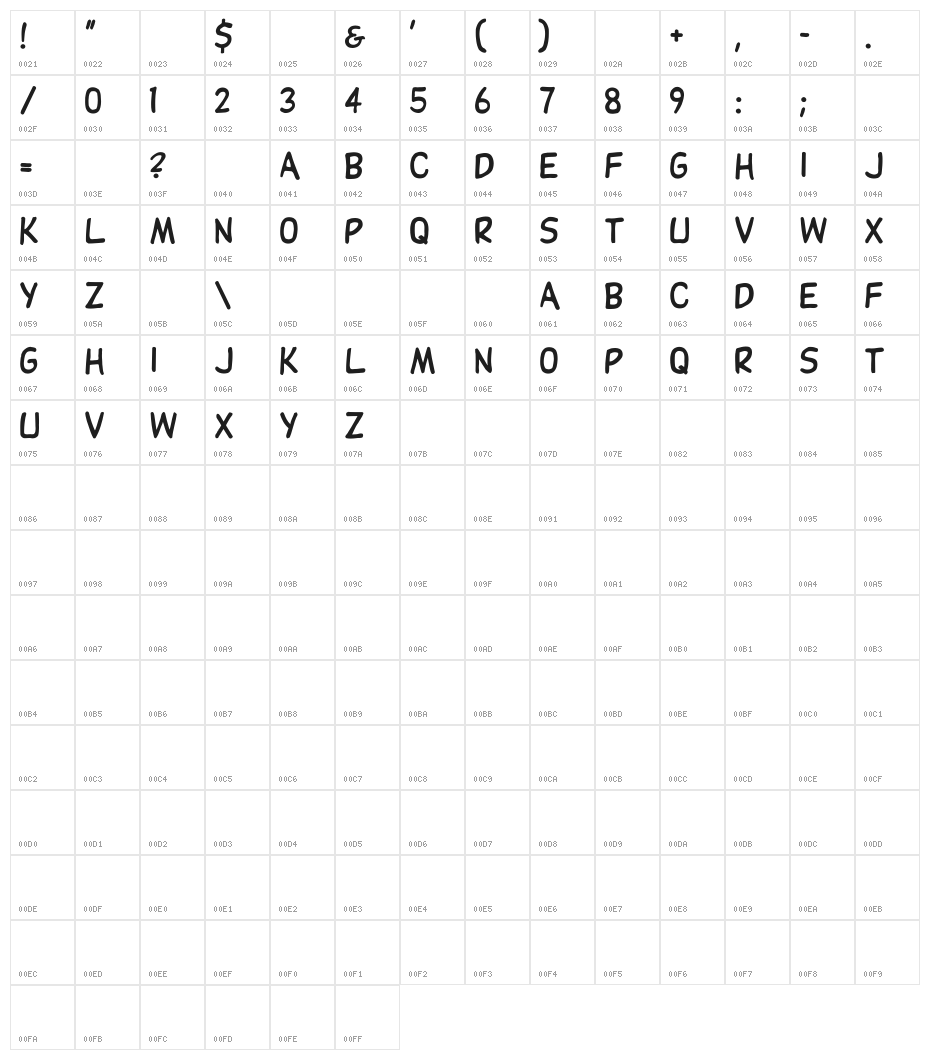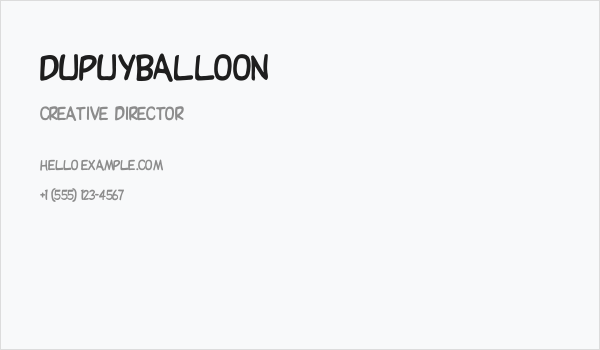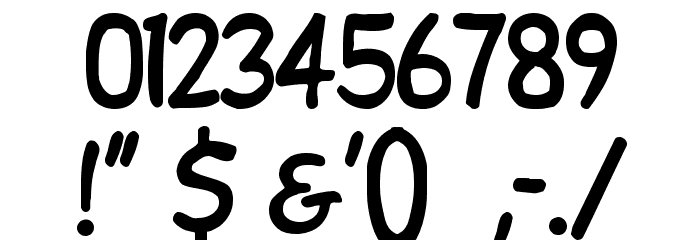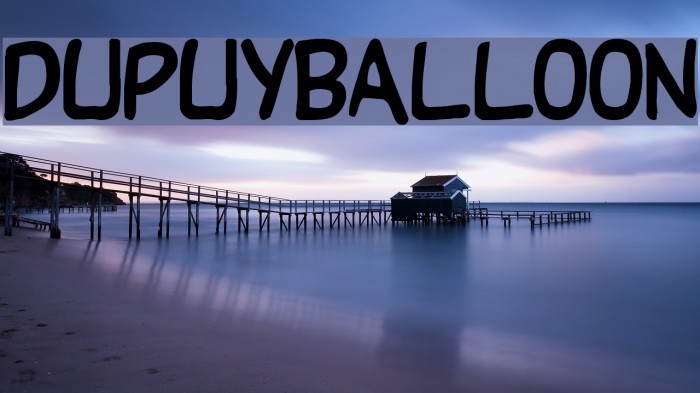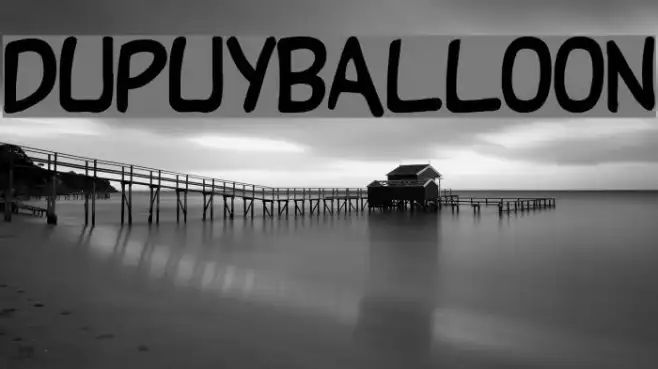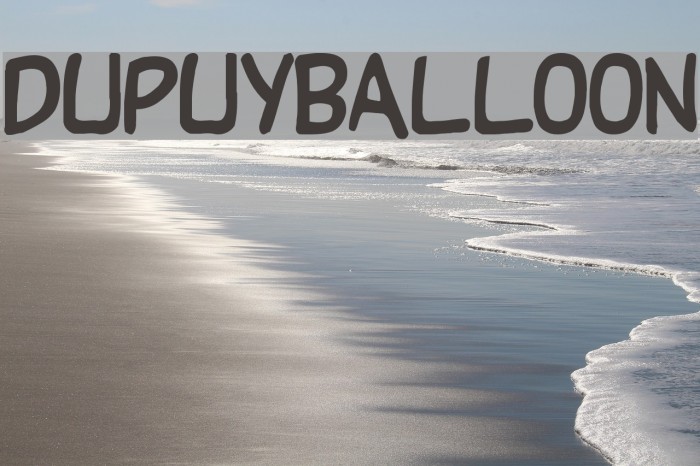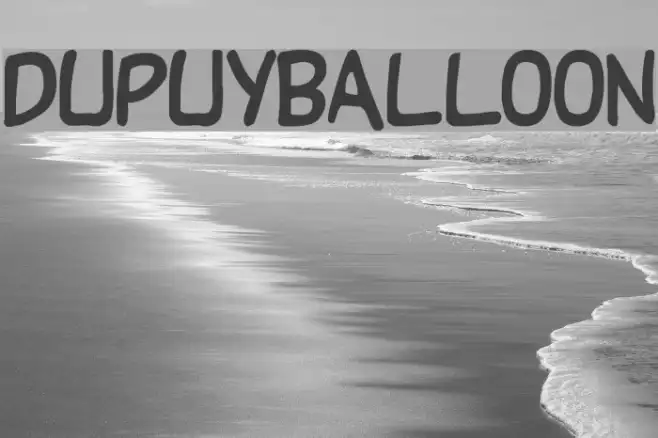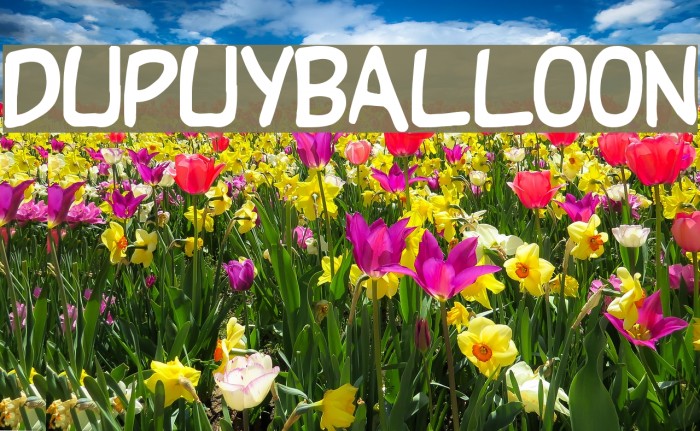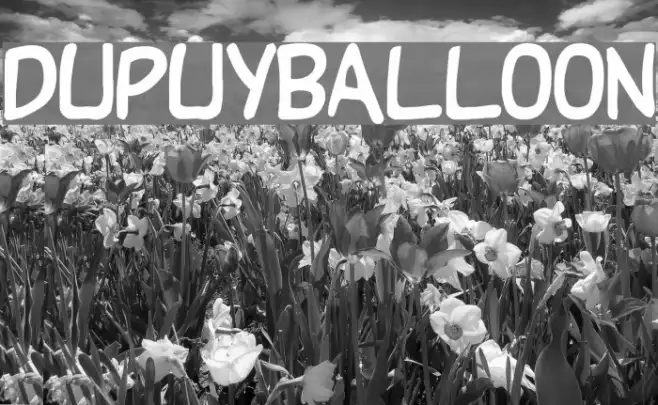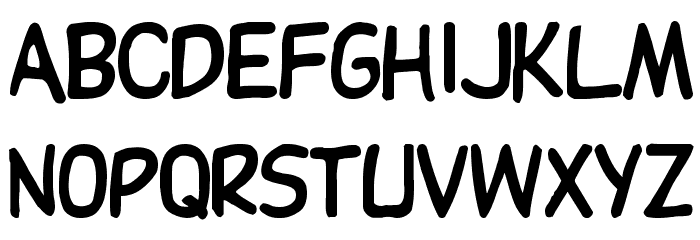
DupuyBALloon Font
DupuyBALloon Description
This playful and bold font features rounded, balloon-like characters that convey a sense of fun and whimsy. The uppercase and lowercase letters are consistent in style, with a slightly informal and hand-drawn appearance. The numbers and special characters maintain the same playful aesthetic, making the font suitable for creative and lighthearted projects. Its thick strokes and rounded edges give it a friendly and approachable look, perfect for designs aimed at children or casual settings.
| Overall Style | Playful, Whimsical |
| Proposed Projects | Ideal for children's books, party invitations, playful branding, and casual posters. |